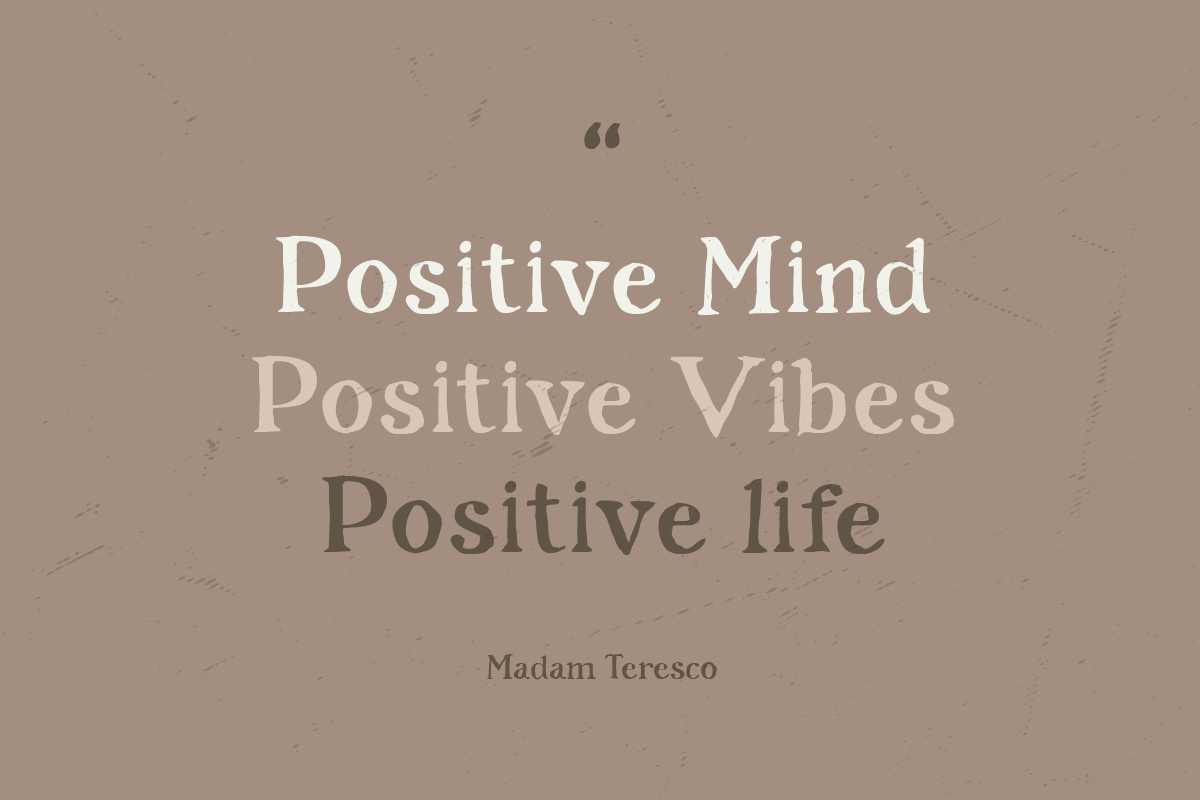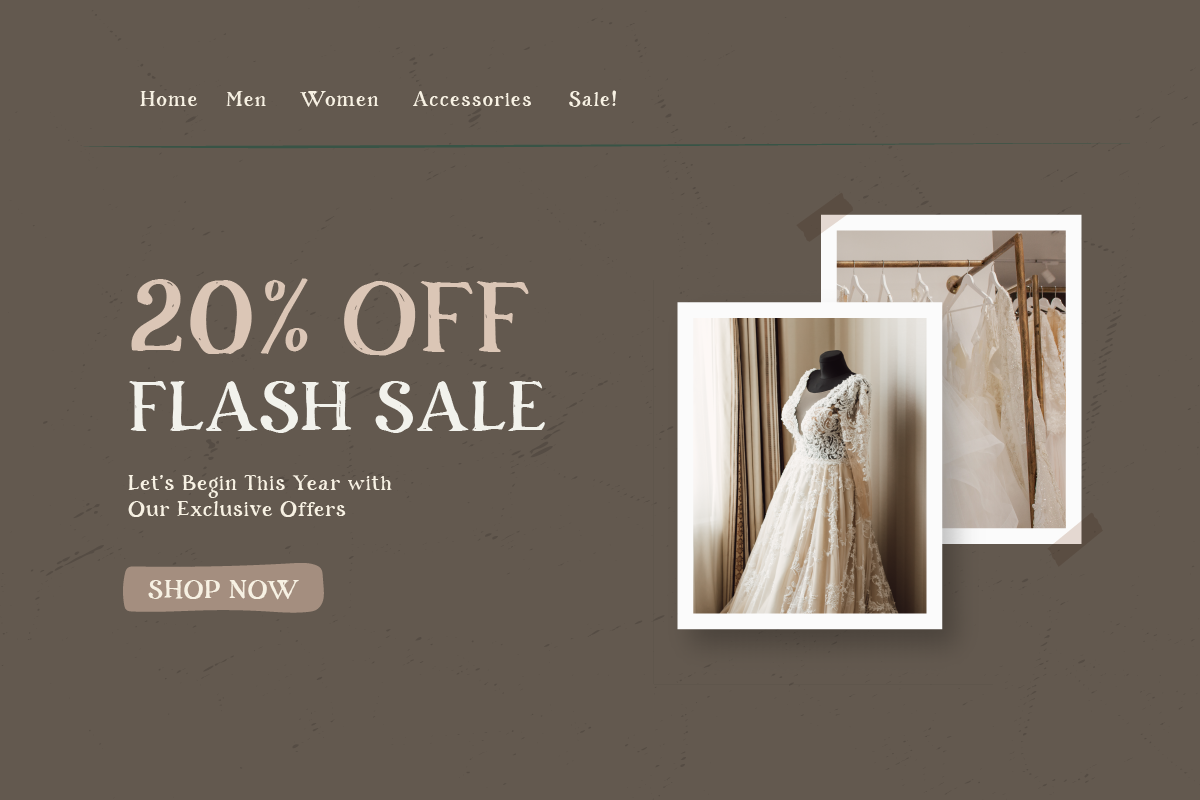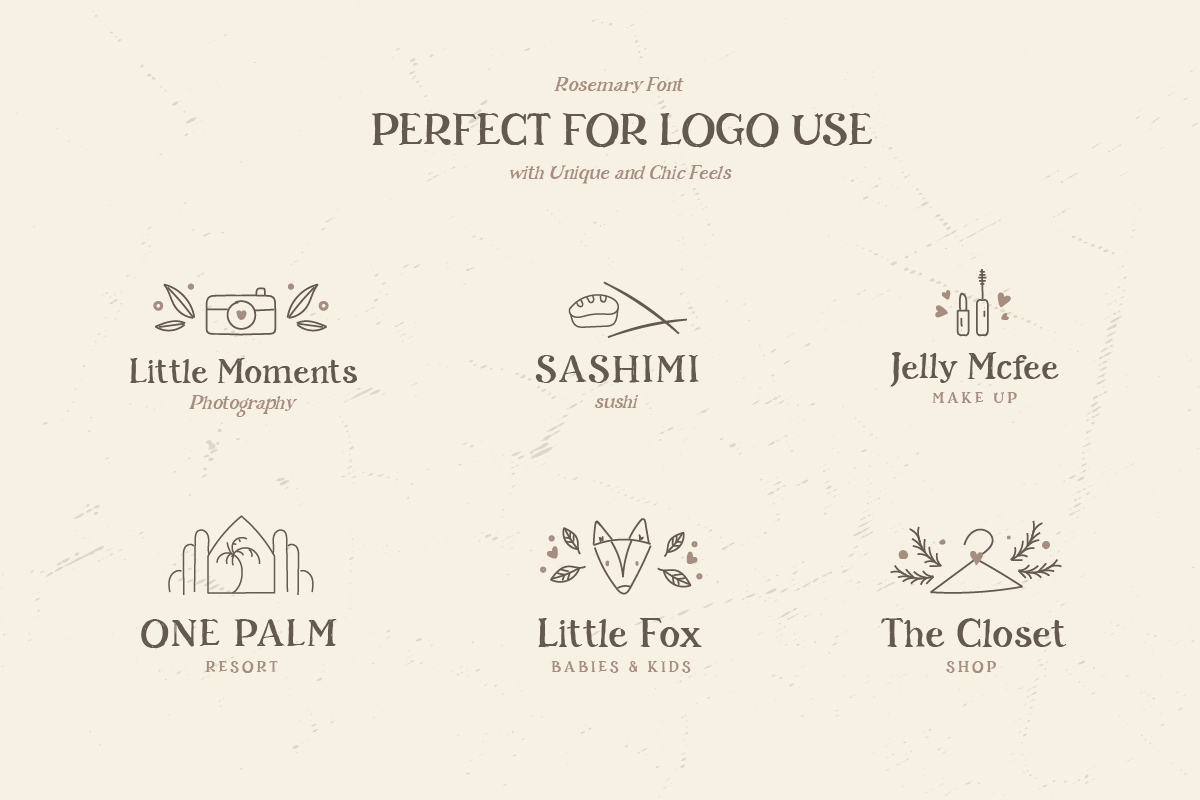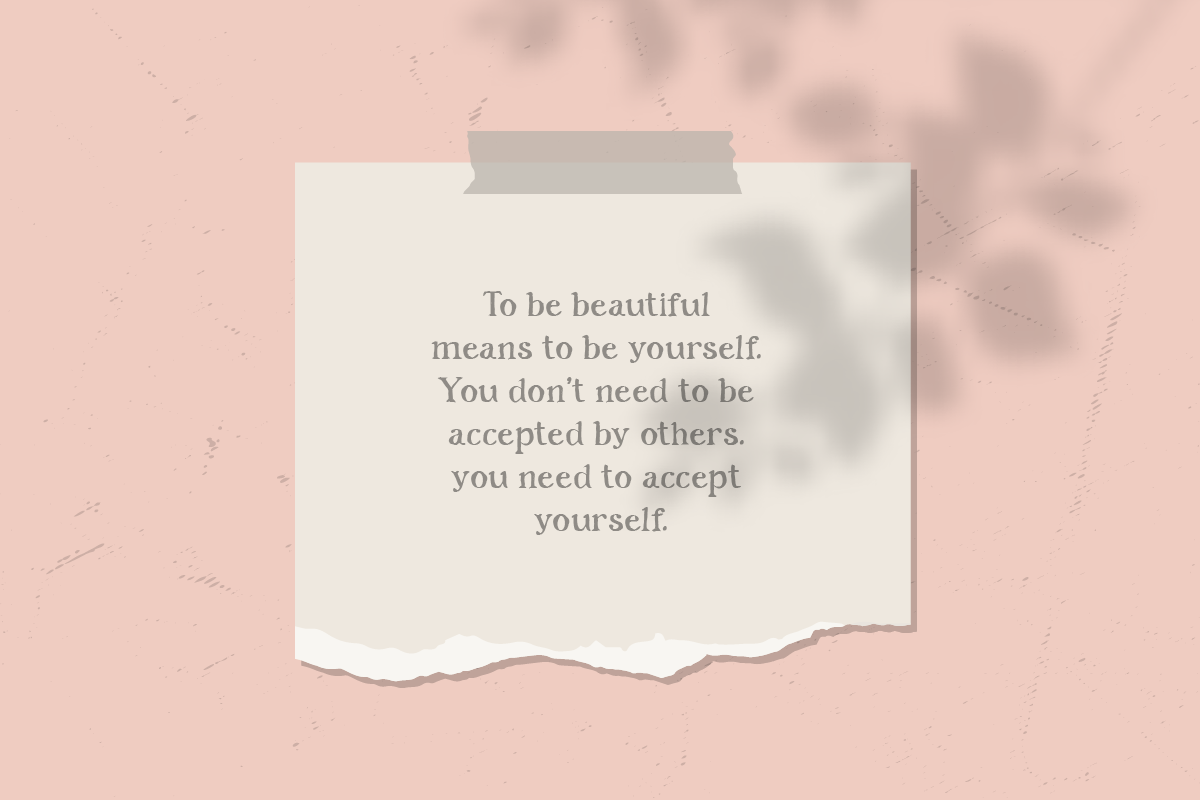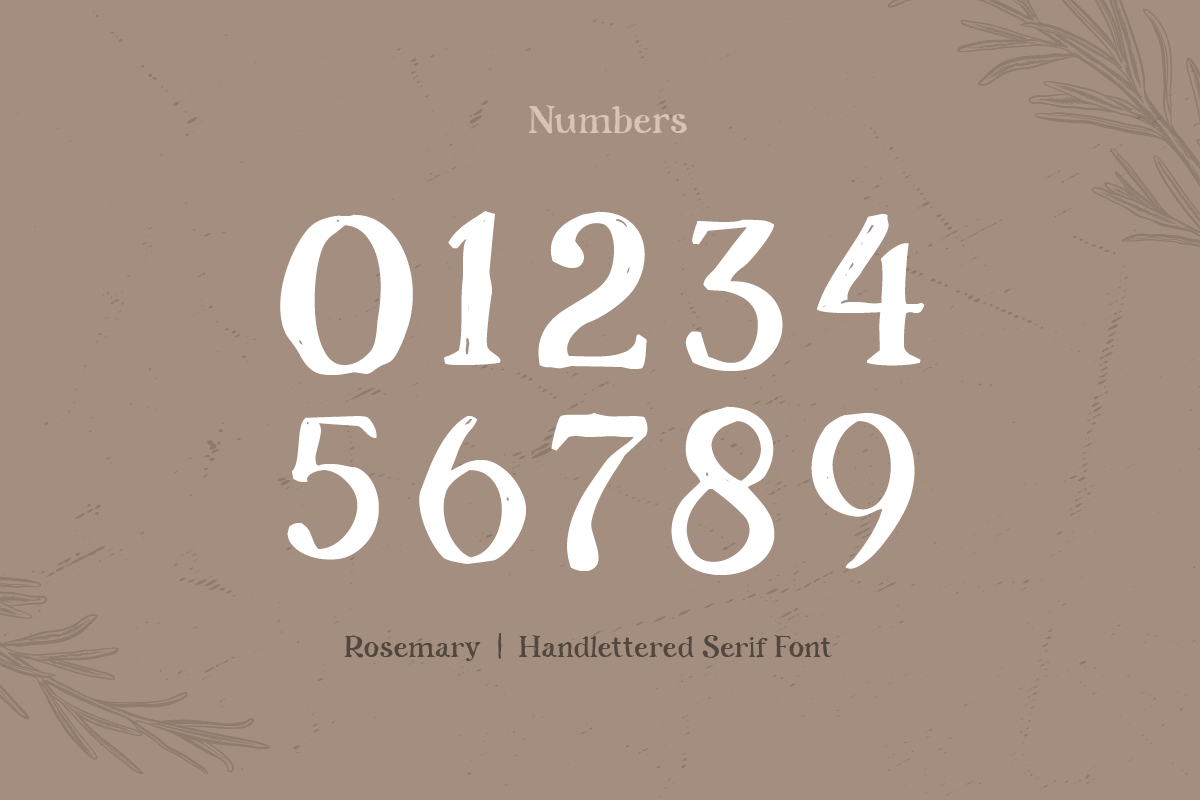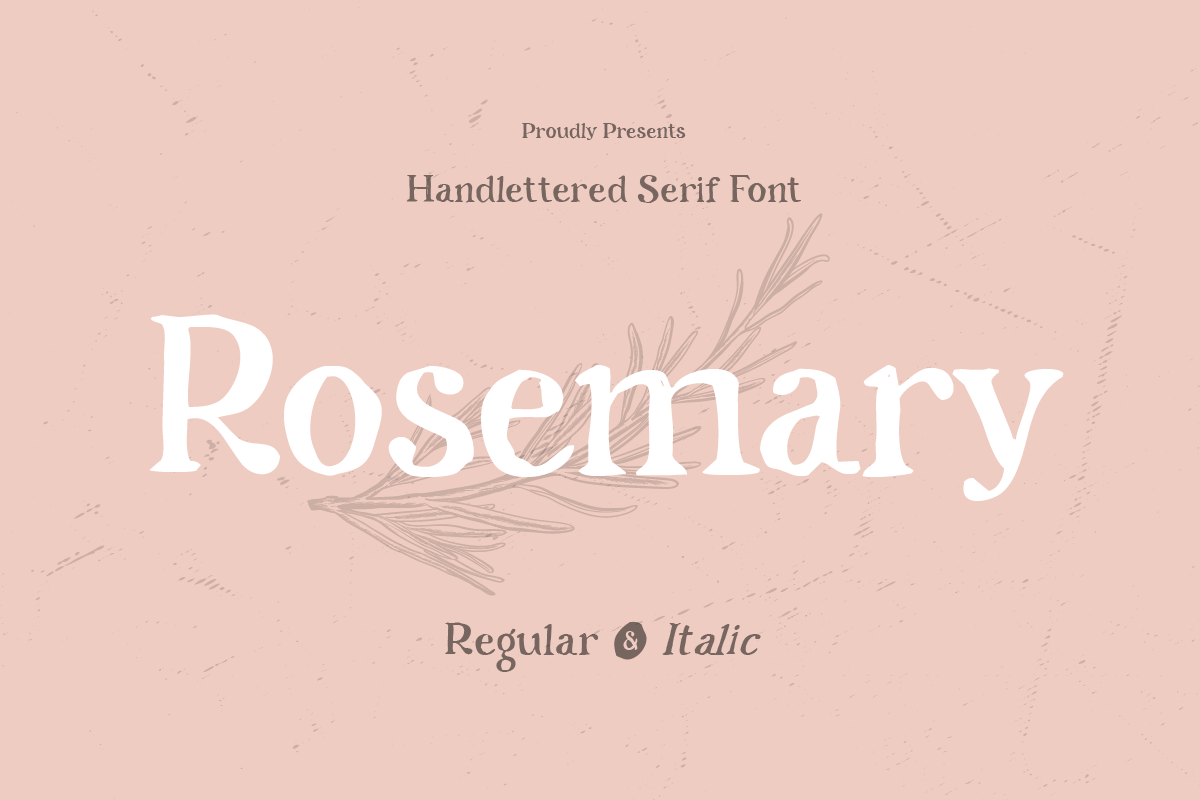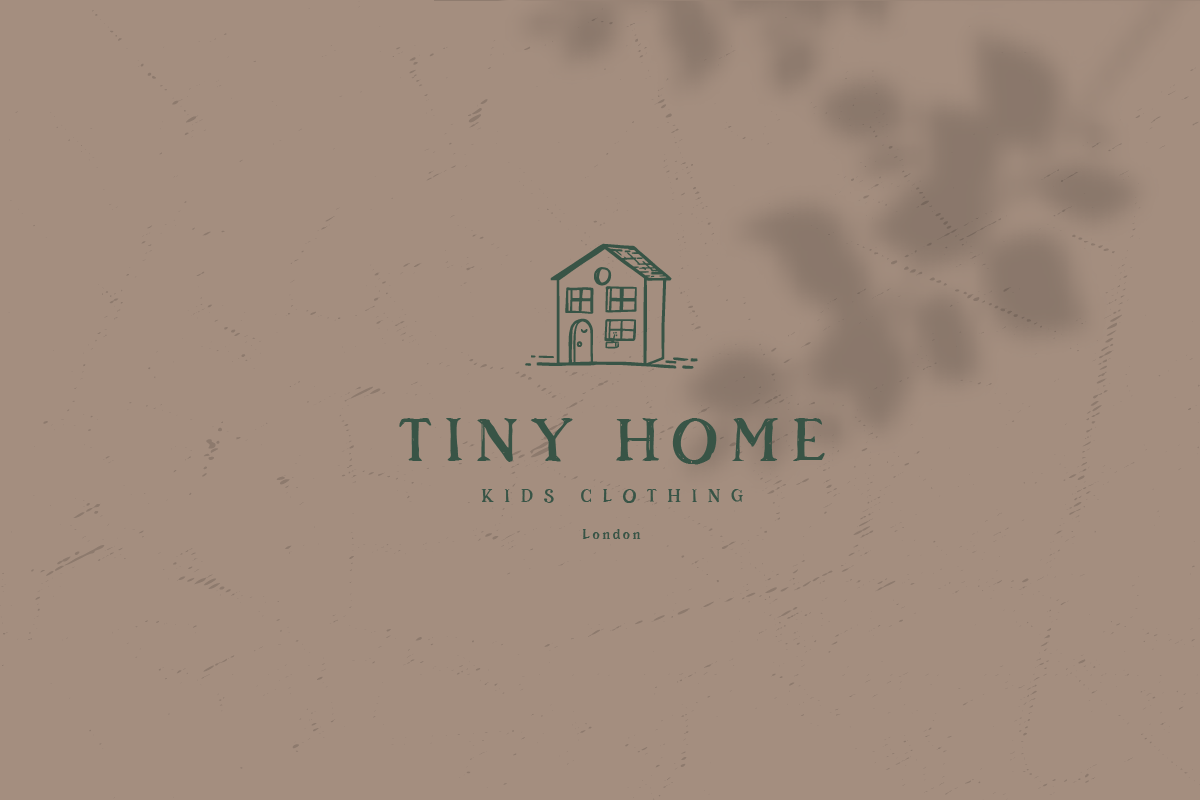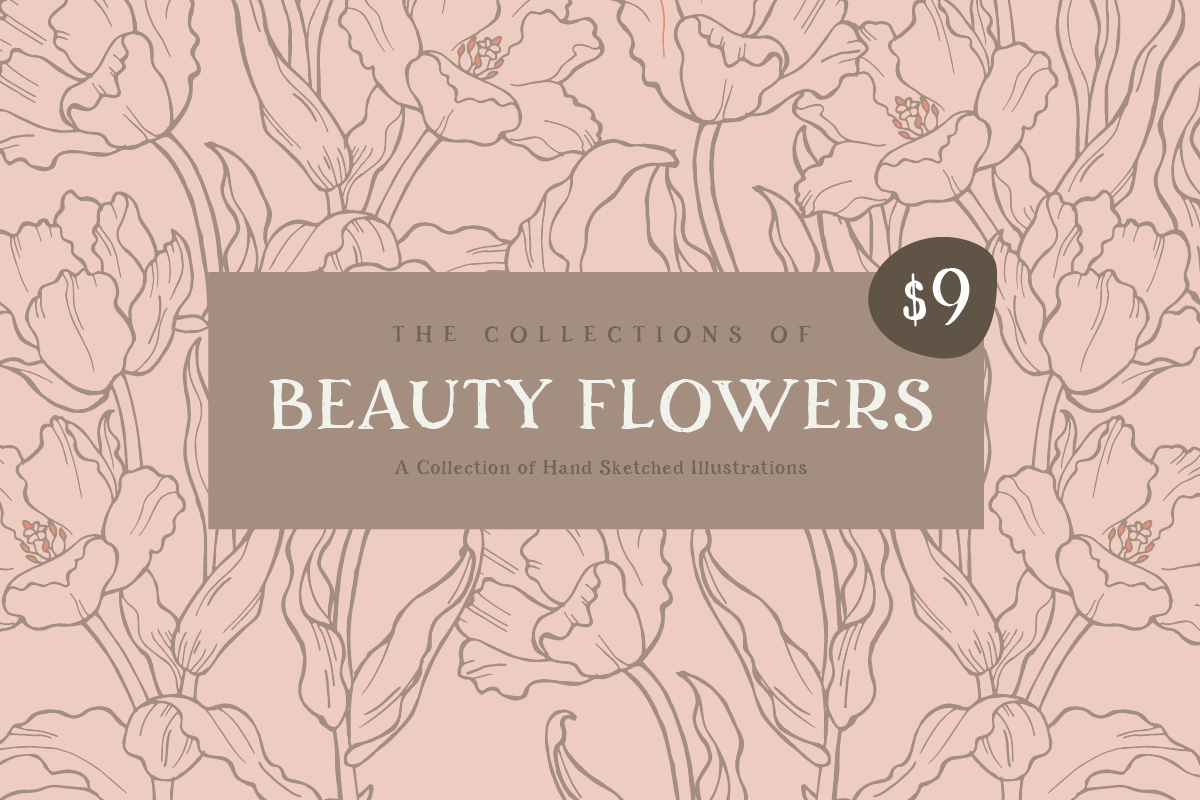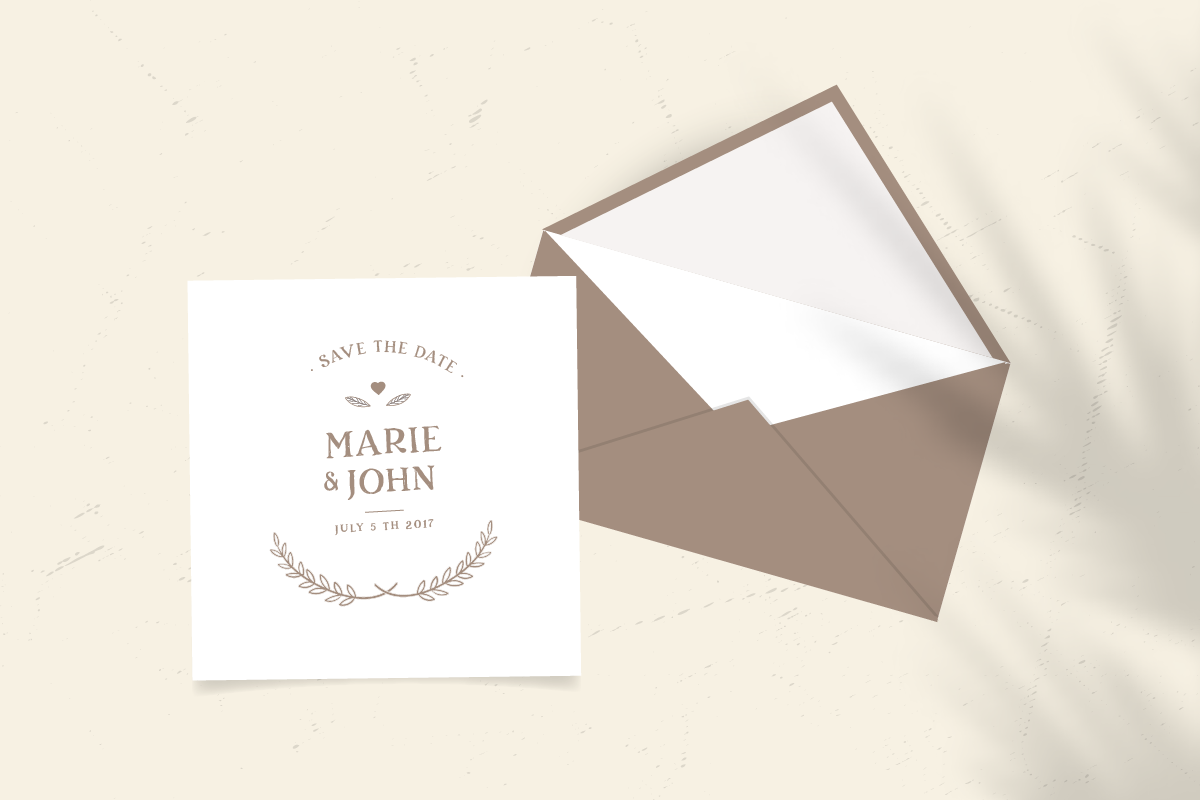
Rosemary - Hand-lettered Font
Rosemary is a hand-lettered cute font for brand, logo and quotes design.
Based on our experience as a graphic designer who works for a lot of companies, we often are requested to design a logo in a unique style but with an cute hand-drawn shape. So, we try to brainstorming and create this font to make the idea is going out. This is perfect for BRANDING and LOGO DESIGN. You will get outstanding, cute, and certainly unique logos with this font.
Rosemary is also included full set of:
- uppercase and lowercase letters
- multilingual characters
- numerals
- punctuation
- Rosemary-Regular
- Rosemary-Italic